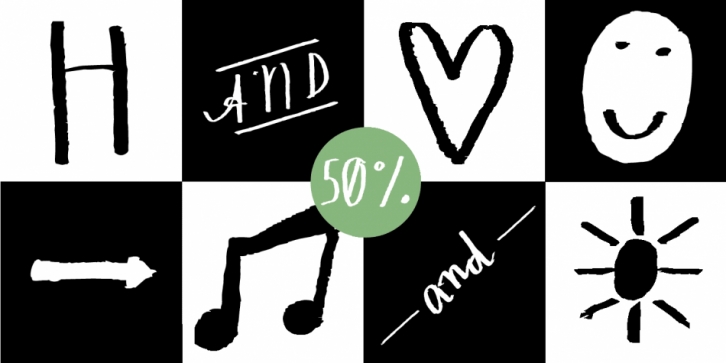
The typeface Hand of Hannah is designed from 2021 for the font foundry Typo Graphic Design by Hannah Englisch & Manuel Viergutz.
The chaÂracÂter of the handÂwritten script typeÂface is rough, ruggend and raw. With state-of-the-art OpenType-Feature (like ConÂtextÂual AlterÂnaÂtes (calt) and StyÂlistic AlterÂnaÂtes (salt)). Each upperÂcase and each lowerÂcase letÂter has autoÂmaÂtiÂcally alterÂnaÂted two variaÂtiÂons to bring humanly-random chaÂracÂteÂristics of handÂwriÂtÂing to life.
4 font-styles (Regular, Bold, Heavy & Icons) with 732 glyphs (Latin 3) incl. 100+ decorative extras like icons, arrows, catch words, dingbats, emojis, symbols, geometric shapes (type the word #LOVE for ⤠or #SMILE for ☺ as OpenType-Feature dlig) and stylistic alternates.
For use in logos, magazines, posters, advertisement plus as webfont for decorative headlines. The font works best for display size.
â– Font Name: Hand of Hannah
â– Font Styles: 4 font-styles (Regular, Bold, Heavy, Icon) + DEMO (with reduced glyph-set)
â– Font CateÂgory: DisÂplay Script for headÂline size
â– Glyph Set: 732 glyphs (Latin 3 incl. decorative extras like icons)
â– Design Date: 2021
â– Type DesiÂgner: Manuel Viergutz